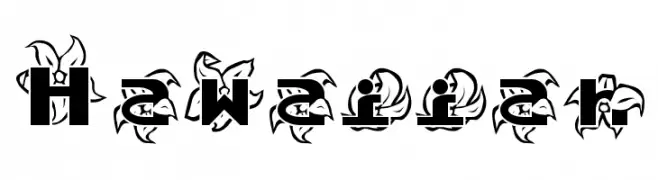
A playful, hand-drawn font with irregular, wavy strokes and a whimsical style.
A whimsical, hand-drawn font with playful, irregular forms and dynamic strokes.
A playful, bold font with rounded edges and a modern, whimsical style.
A whimsical and decorative font with playful embellishments on each character.
A playful and whimsical font with irregular, dynamic letterforms.
A bold, decorative font with integrated floral motifs, perfect for tropical-themed designs.